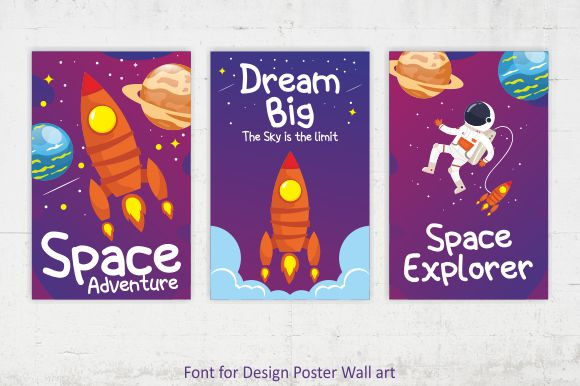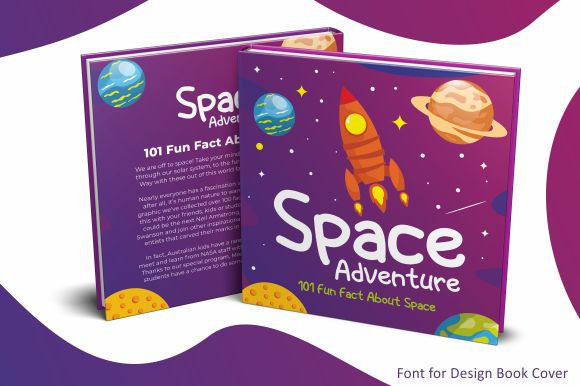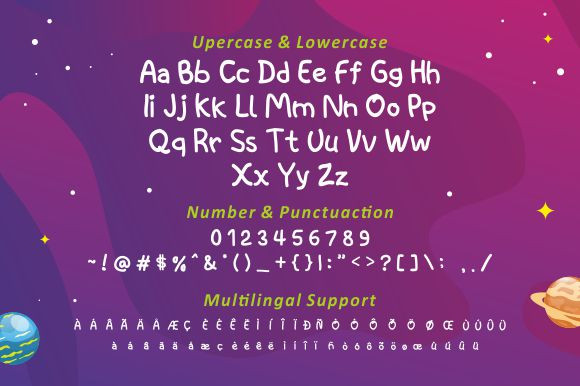
Space Kids Display Font
It’s a playful sans serif font with bold and cute style for your project include uppercase & lowercase and Multilingual support really perfect for branding project like Logo, comic text, Book cover for children, social media post, Tshirt quotes, stationary, and handwriting comic style